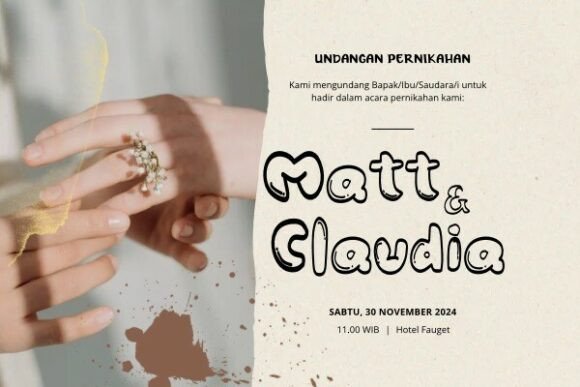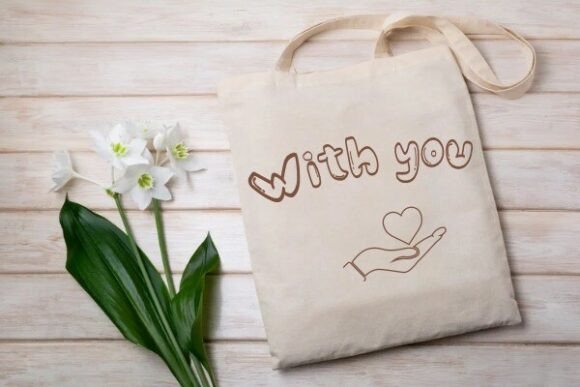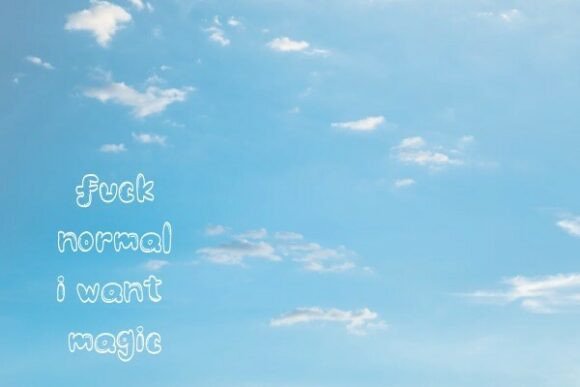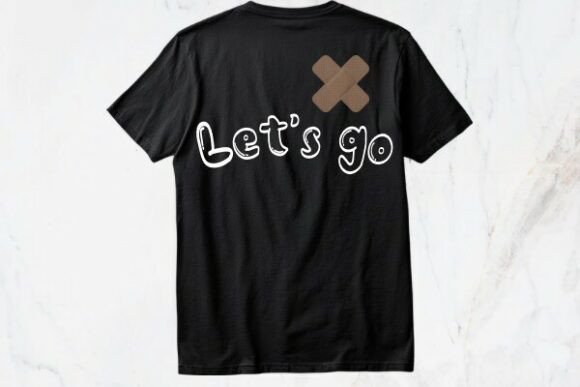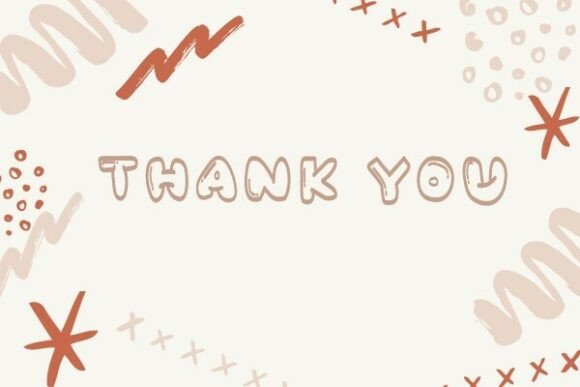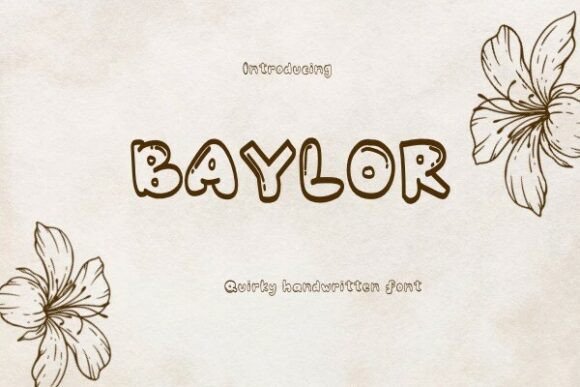
Discover the Unique Charm of Baylor Font: Elevate Your Design Projects with Style
In the world of typography, fonts play a crucial role in bringing creative visions to life. For designers and crafters, finding the perfect font can make all the difference in transforming a simple design into a stunning work of art. This is where the Baylor font comes in – a truly unique handwriting-inspired style that can artfully elevate your design projects. With its versatility and wide range of applications, Baylor font is not just a font, but a key tool in unlocking your creative potential.
The Baylor Font: A Handwriting-Inspired Style
The Baylor font boasts a distinctive handwriting-inspired style that adds a touch of personality to any design project. Its unique charm lies in its ability to convey a sense of warmth and approachability, making it perfect for a wide range of applications. Whether you’re designing t-shirts, mugs, greeting cards, or invitation cards, the Baylor font is sure to make your creations stand out.
Versatility Unrivaled
One of the standout features of the Baylor font is its versatility. It seamlessly integrates within various design projects, from casual t-shirt designs to more formal invitation cards. This adaptability makes it an excellent choice for designers and crafters who work on a wide range of projects. With Baylor font, you can experiment with different design styles and still achieve a cohesive look that ties your brand or theme together.
The Baylor font offers endless design possibilities, making it an excellent addition to any designer’s toolkit. Here are just a few examples of how you can use Baylor font to elevate your design projects:
- T-Shirt Designs: Add a personal touch to your t-shirt designs with Baylor font. Its unique style ensures that your designs stand out and grab attention.
- Mugs: Create customized mugs that make perfect gifts or promotional items. Baylor font adds a touch of warmth and personality to your designs.
- Greeting Cards: Design beautiful greeting cards for special occasions like birthdays, weddings, or holidays. Baylor font’s handwriting-inspired style adds a heartfelt touch to your cards.
- Invitation Cards: Make your invitation cards stand out with Baylor font. Its unique charm ensures that your invitations are memorable and eagerly anticipated.
- Mockups: Use Baylor font in various mockups to add a touch of personality and style. From business cards to posters, Baylor font can elevate your designs and make them more engaging.
Bringing Your Creative Visions to Life
The Baylor font is more than just a typography style – it’s a tool that helps bring your creative visions to life. With its unique handwriting-inspired style and versatility, Baylor font empowers designers and crafters to experiment with new ideas and push the boundaries of their creativity. Whether you’re a seasoned designer or just starting out, Baylor font is an excellent choice for anyone looking to add a touch of personality and style to their design projects.
Tips for Using Baylor Font Effectively
To get the most out of Baylor font, here are a few tips to keep in mind:
- Experiment with Colors: Baylor font looks great in a variety of colors. Experiment with different color schemes to find the perfect combination that matches your design style.
- Mix and Match: Don’t be afraid to mix and match Baylor font with other typography styles. This can add visual interest and create a unique look that sets your designs apart.
- Pay Attention to Spacing: Make sure to adjust the spacing between letters and words to ensure that your design looks balanced and visually appealing.
The Baylor font is a truly unique handwriting-inspired style that can artfully elevate your design projects. With its versatility and wide range of applications, Baylor font is an excellent choice for designers and crafters looking to add a touch of personality and style to their creations. Whether you’re designing t-shirts, mugs, greeting cards, or invitation cards, Baylor font is sure to bring your creative visions to life.